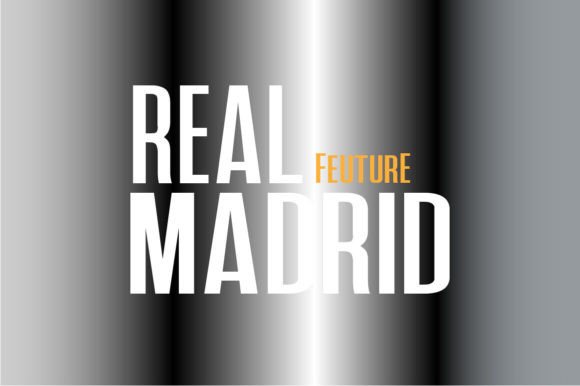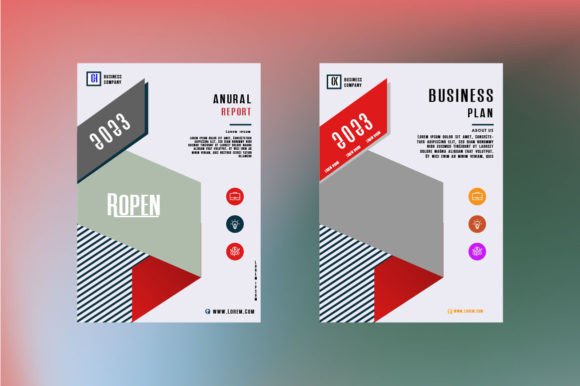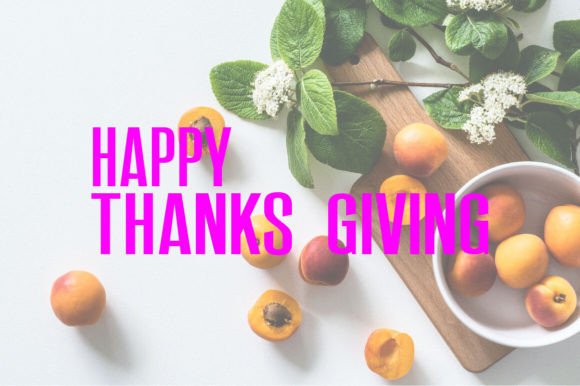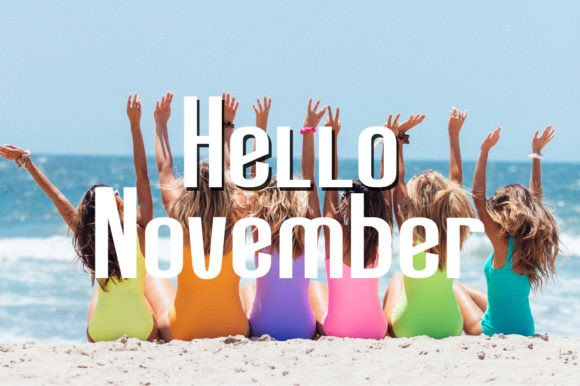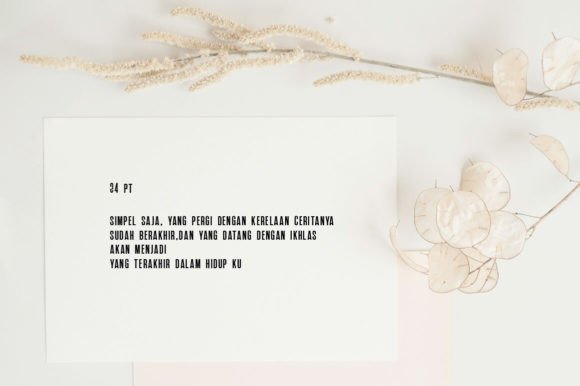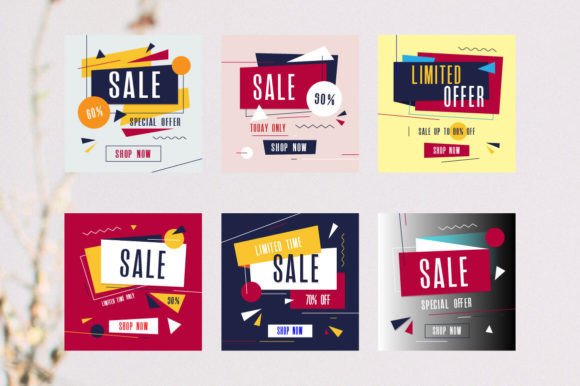
Introducing Bojone Font: The Timeless Classic for Creative Masterpieces
Bojone is an incredibly classic display font that has captured the hearts of designers and crafters alike. Masterfully designed to become a true favorite, this font has the potential to bring each of your creative ideas to the highest level. With its unique charm and versatility, Bojone Font is the perfect addition to your typography collection.
The Story Behind Bojone Font
Bojone Font is a meticulously crafted typeface that exudes elegance and sophistication. Its classic design makes it an excellent choice for a wide range of creative projects, from branding and advertising to packaging and digital media. The font’s creator aimed to develop a typeface that would be both visually striking and highly legible, resulting in a font that is both beautiful and functional.
Key Features of Bojone Font
- Unique Character Set: Bojone Font features a comprehensive character set, including uppercase and lowercase letters, numbers, and punctuation marks. This extensive character set ensures that you have everything you need to create stunning text-based designs.
- Highly Legible: The font’s carefully crafted letterforms ensure excellent readability, even at smaller font sizes. This makes Bojone Font perfect for use in body text, headlines, and titles.
- Versatile and Adaptable: Bojone Font is designed to be versatile and adaptable, making it suitable for a wide range of creative projects, from elegant wedding invitations to bold advertising campaigns.
Design Inspiration with Bojone Font
Bojone Font is an excellent choice for designers looking to add a touch of elegance and sophistication to their work. Here are a few design inspiration ideas to get you started:
- Wedding Stationery: Use Bojone Font to create beautiful wedding invitations, save-the-date cards, and ceremony programs that exude romance and luxury.
- Branding and Packaging: Bojone Font is perfect for creating high-end brand identities, including logos, business cards, and product packaging that demands attention.
- Digital Media: Use Bojone Font to create engaging social media graphics, blog posts, and website headers that showcase your creativity and style.
Tips for Using Bojone Font
To get the most out of Bojone Font, here are a few tips to keep in mind:
- Experiment with Font Sizes: Bojone Font looks stunning at larger font sizes, but it’s also highly legible at smaller sizes. Experiment with different font sizes to find the perfect balance for your design.
- Pair with Other Fonts: Bojone Font pairs well with a variety of other fonts, including sans-serif and script fonts. Experiment with different font combinations to create unique and visually striking designs.
- Pay Attention to Kerning: As with any font, kerning is essential to creating professional-looking text. Take the time to adjust the kerning to ensure that your text looks polished and refined.
Bojone Font is a timeless classic that deserves a place in every designer’s typography collection. Its unique charm, versatility, and high legibility make it an excellent choice for a wide range of creative projects. Whether you’re a seasoned designer or a crafty DIY enthusiast, Bojone Font is sure to inspire your creativity and take your designs to the next level.